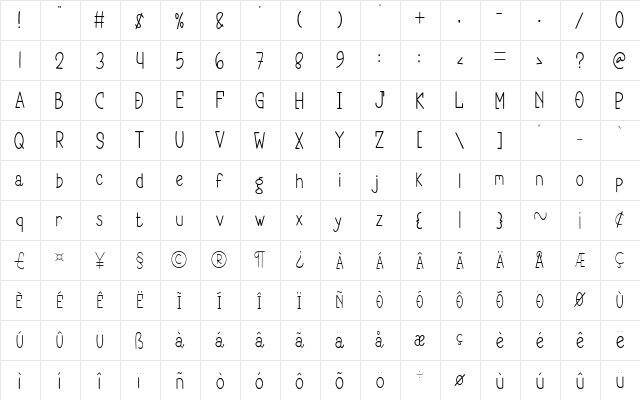
Second Date Regular Font Preview
Second Date Regular
Design Context for Second Date Typeface
Second Date is a composed and adaptable typeface that performs quietly and consistently across a wide range of design contexts. The condensed width makes it efficient for tight spaces without sacrificing legibility.